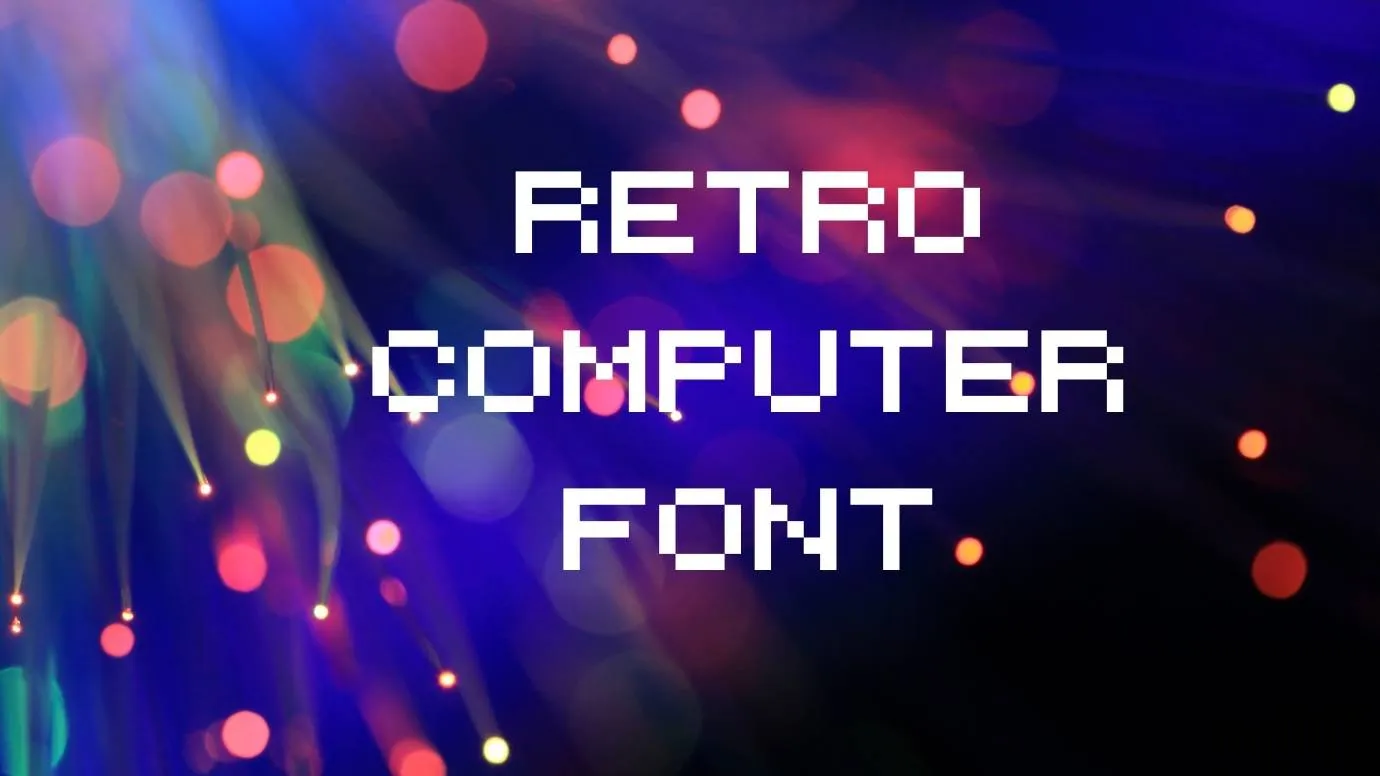
Retro Computer Font Family comes in the retro category. It comes in 91 unique and fantastic characters along with numbers, letters, general punctuations, and some special characters.
This font has unique letters that are best for name design purposes. Similar font to this typeface is brady bunch font and the designer can also make its pairing in different advanced and high-quality projects.
| Name | Retro Computer Font |
| Designer | Petyka |
| Type | Retro |